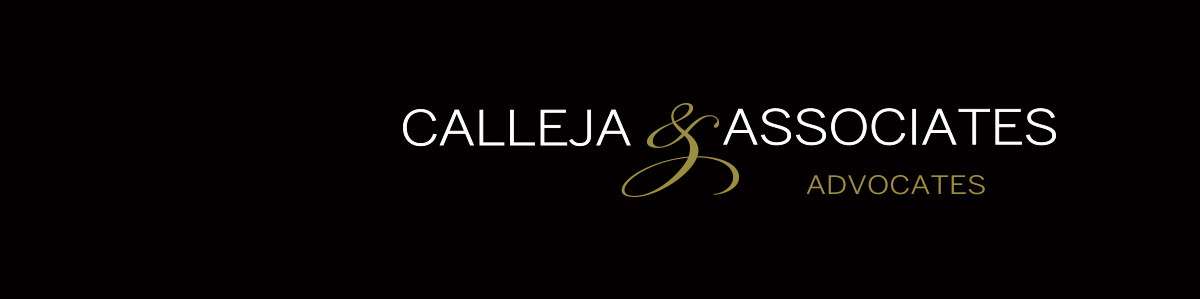
The sans serif face is a variant of an extended version of Helvetica. It isn’t Helv, though. The center bar of the E is shorter than in Helvetica, and the curved tail of the J follows a wider arc. The terminals of the C and S end with a straight horizontal cut, just as in Helvetica. There are many, many Helvetica lookalikes, and I checked on a lot of them. Good luck.